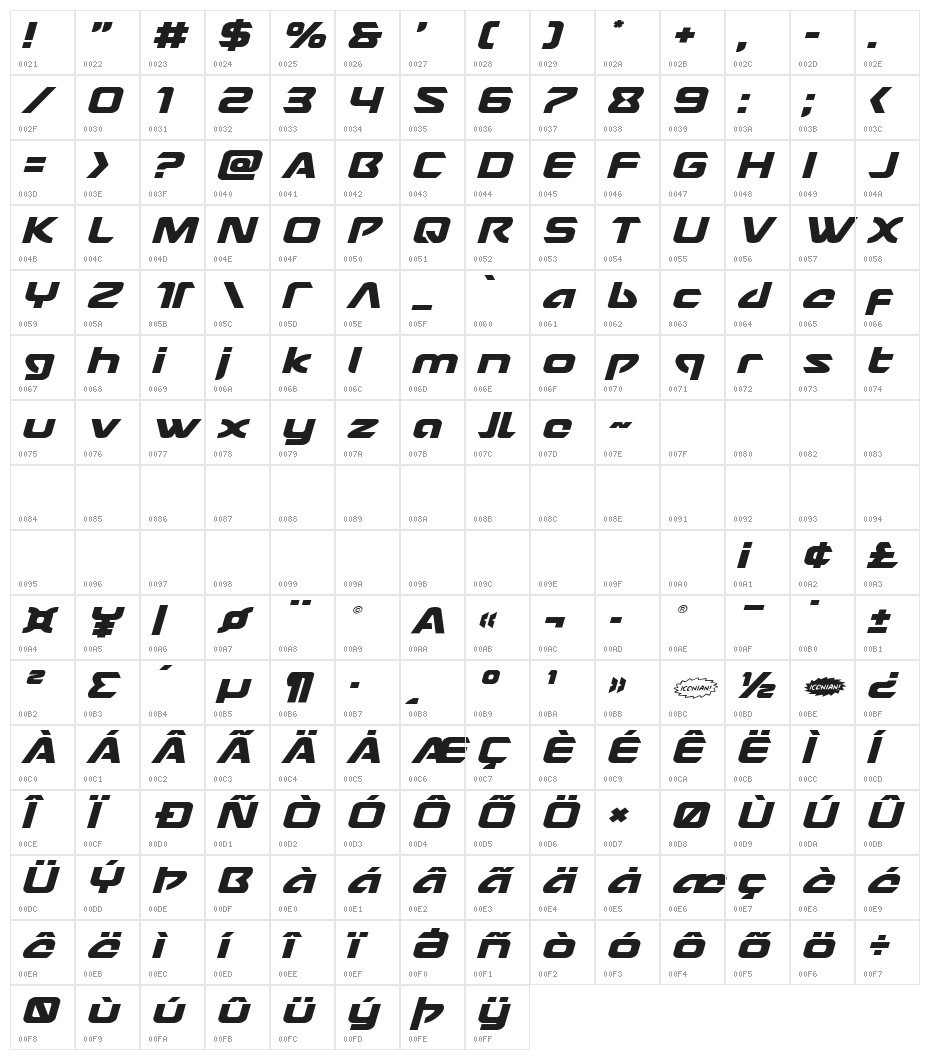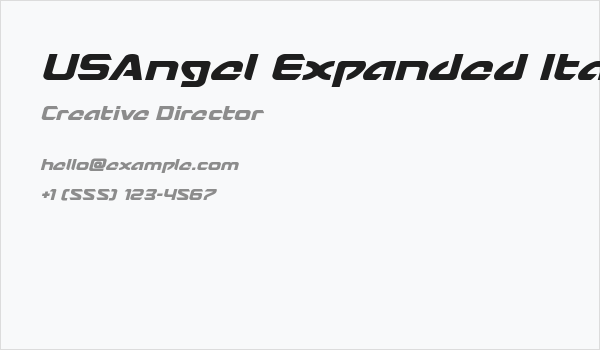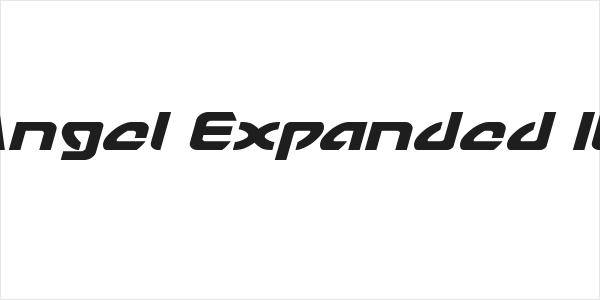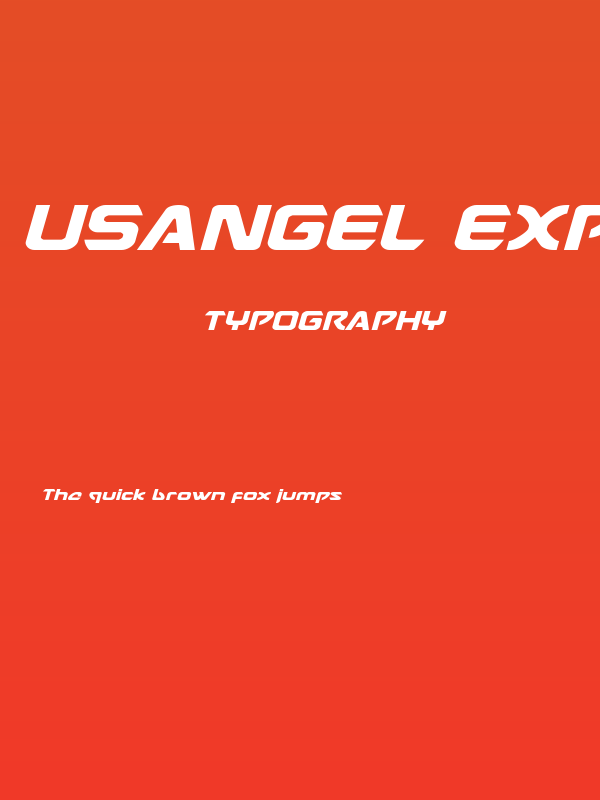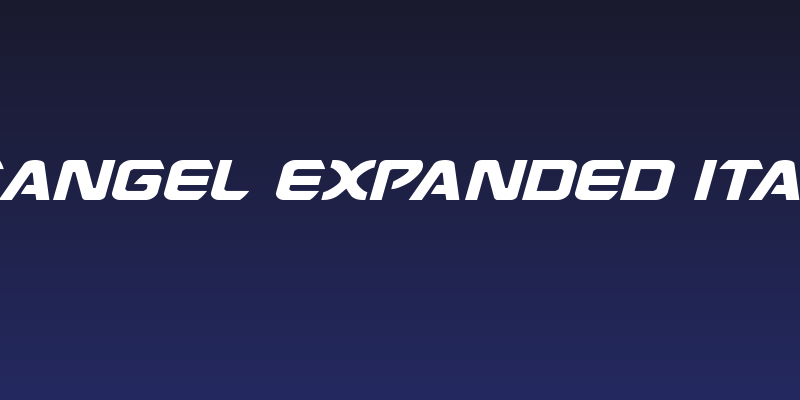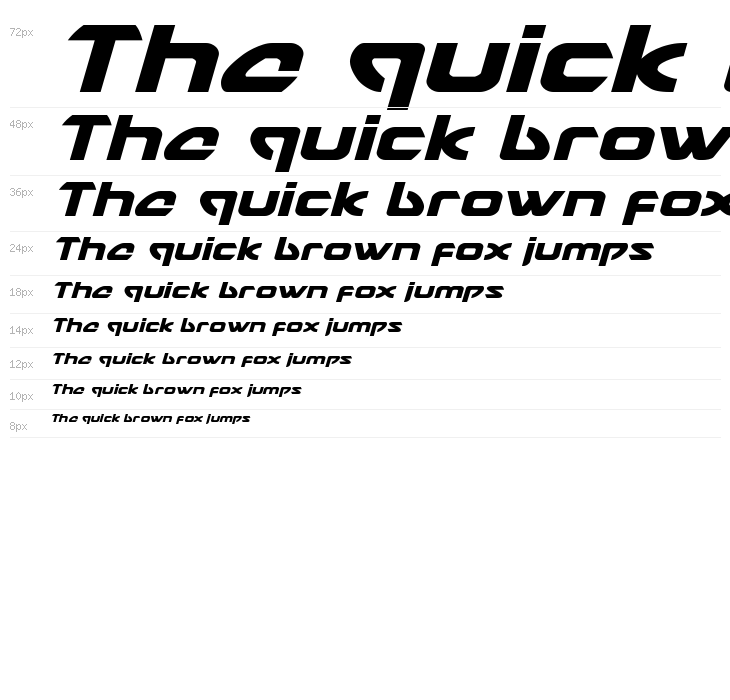
USAngel Expanded Italic Font
USAngel Expanded Italic Description
This font features a bold and dynamic design with an italicized style that gives it a sense of motion and energy. The characters are expanded, providing a wide stance that enhances readability while maintaining a modern and sleek appearance. The angular cuts and sharp edges of the letters contribute to its futuristic and sporty aesthetic. This font is well-suited for projects that require a strong visual impact, such as branding for sports teams, automotive industries, or tech companies. The numerals and special characters maintain the same bold and italicized style, ensuring consistency across all text elements.
| Proposed Projects | Ideal for sports branding, automotive designs, tech company logos, and dynamic advertising. |